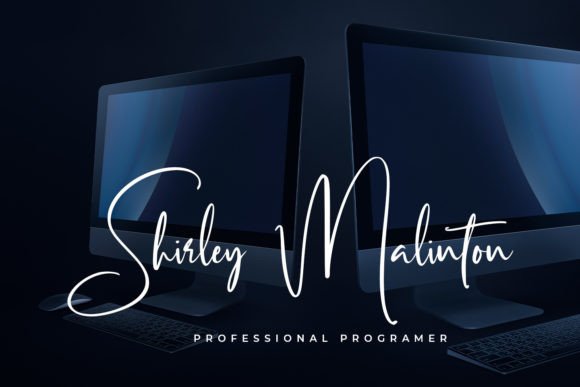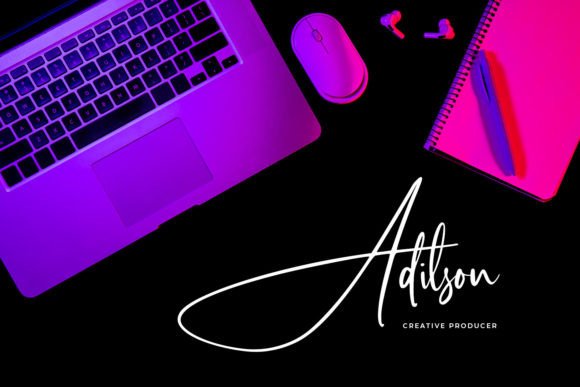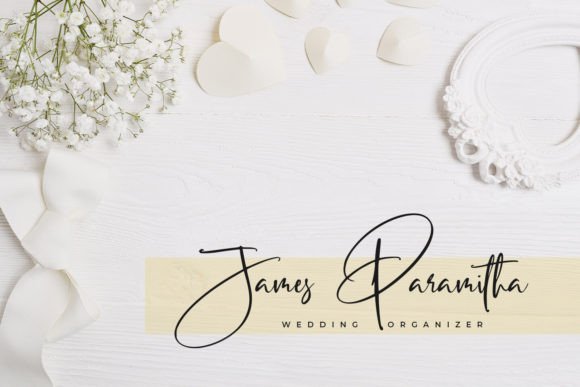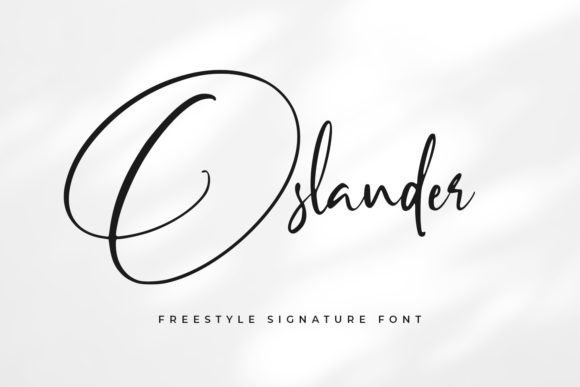
Introduction to Oslander Font
Oslander is a fresh signature font.
👤 Author Abodaniel
It is great for branding, logos, t-shirt designs, tote bag designs, cards, banners, social media, and more .
Key Features of Oslander Font
Why Choose Oslander Font?
Oslander Font offers exceptional quality and versatility, making it a valuable addition to your design toolkit. Whether you’re creating for personal projects or commercial use, Oslander Font delivers professional results.